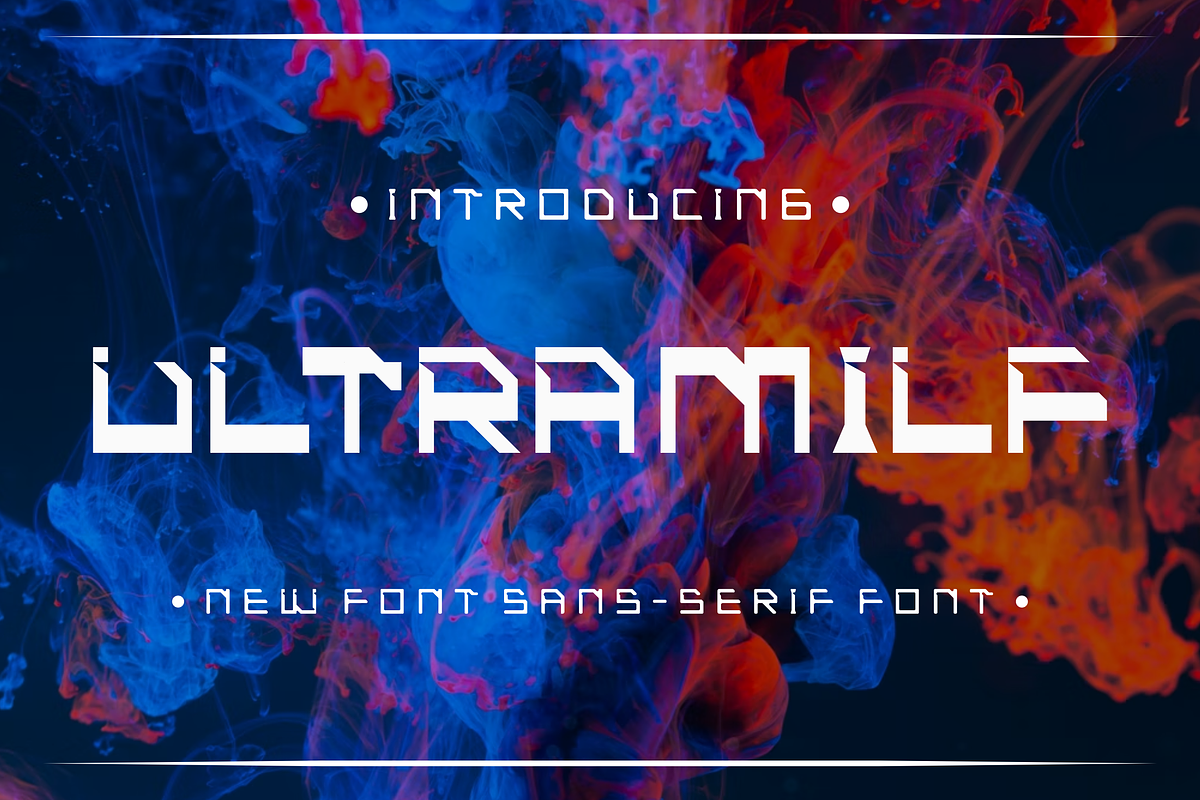
This bold font is perfect for modern advertising campaigns, trendy magazine layouts, fashion branding, nightclub promotions, contemporary art projects, edgy product packaging, youth-oriented marketing materials, and dynamic social media graphics. Its striking character makes it ideal for projects requiring attention-grabbing impact and modern urban appeal.
Ultramilf Font is exciting because it features ultra-bold letterforms with dramatic weight distribution that commands immediate attention and creates powerful visual statements. The font combines contemporary design trends with exceptional readability, ensuring maximum impact without sacrificing functionality. Its confident personality and strong presence make it perfect for brands that want to project boldness, innovation, and cutting-edge style.
The Ultramilf Font family typically includes multiple weights from regular to ultra-bold, along with condensed variations and stylistic alternates. Many versions feature extended character sets, special symbols, and decorative elements that enhance its versatility for diverse design applications.
Whether you're developing high-impact advertising, contemporary brand identities, or dynamic digital content, Ultramilf Font Free Download provides maximum visual impact with professional reliability. This typeface transforms ordinary text into powerful statements that capture attention and convey confidence. Its versatile boldness works equally well for headlines, logos, and display applications, making it an essential tool for designers who need fonts that make strong impressions and create memorable brand experiences in today's competitive visual landscape.